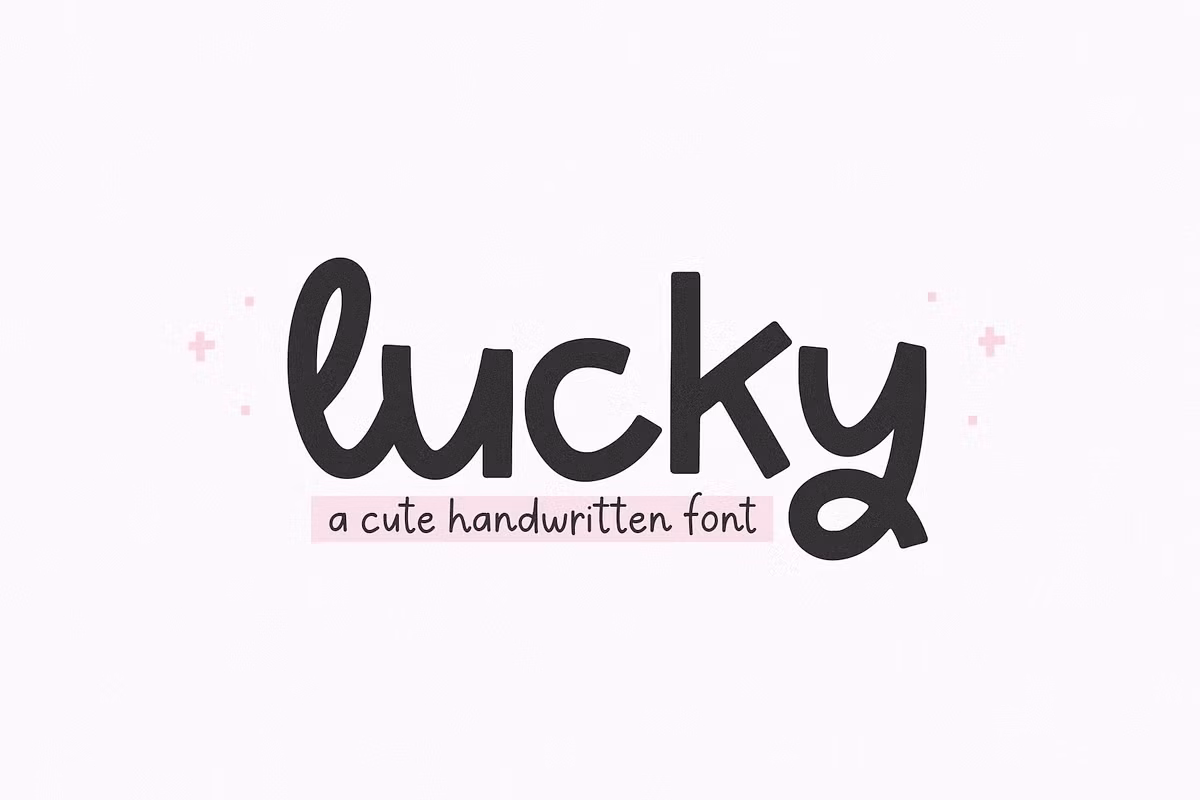
Bring a touch of charm and personality to your designs with Lucky Handwritten Script Font Free Download — a playful, hand-drawn typeface that captures the essence of authentic, handwritten text. Perfect for invitations, branding, social media posts, greeting cards, and any project that needs a personal, stylish touch.
Lucky features smooth, flowing strokes that add warmth and friendliness to your typography. It includes uppercase and lowercase letters, punctuation, numerals, and multilingual support — providing flexibility for various creative applications.